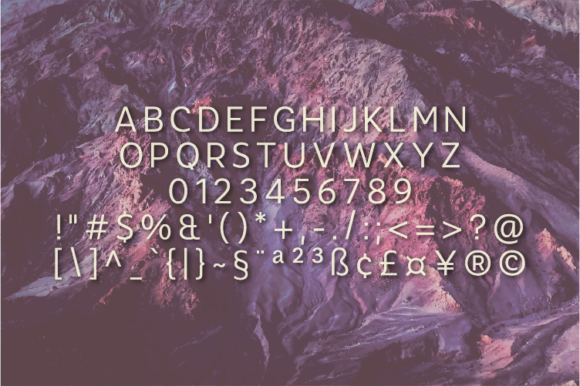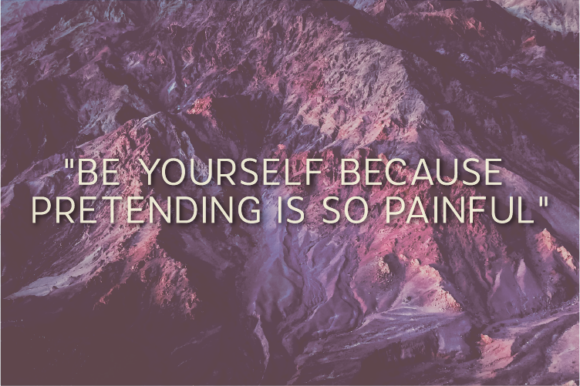
An Honest Review of Blowey Font
What I Love About Blowey Font
- ✅ Minimal yet elegant design: Blowey Font boasts a clean and simple style that works wonders for a wide range of designs.
- ✅ Versatility: From digital platforms to print materials, Blowey Font adapts seamlessly to various mediums.
- ✅ Easy on the eyes: The font’s neat and organized structure makes it a joy to read, even for extended periods.
- ✅ Highly legible: Blowey Font shines when it comes to readability, making it perfect for body text, headings, and more.
While Blowey Font is an excellent choice, it’s not without its quirks. 🤔
- ⚠️ Limited expressiveness: Due to its minimalist design, Blowey Font might not be the best fit for projects requiring a bold or playful tone.
- ⚠️ Glyph variety: While Blowey Font comes with a decent set of glyphs, it might not have every special character or symbol you need.
One of the standout features of Blowey Font is its support for OpenType features and glyphs. These allow you to access stylistic alternates, ligatures, and other typographic goodies. To access these features:
The Story Behind Blowey Font
Blowey Font was designed with the goal of creating a versatile, modern sans-serif font that could be used across various platforms. Inspired by the simplicity and elegance of contemporary design, the creator aimed to produce a font that was both minimalistic and highly legible. The result is a font that effortlessly adapts to different design needs, making it a valuable addition to any designer’s toolkit.
Q: Is Blowey Font suitable for body text?
A: Absolutely! Blowey Font is designed to be highly legible, making it an excellent choice for body text in both digital and print materials.
Q: Does Blowey Font support multiple languages?
A: Blowey Font likely supports a range of languages, but the exact languages depend on the character set included. Check the font documentation or contact the creator for more details.
Q: How does Blowey Font compare to other sans-serif fonts?
A: Blowey Font stands out for its minimalistic design and high legibility. While similar to other modern sans-serif fonts, its unique touch makes it a great option for designers looking for something fresh yet versatile.